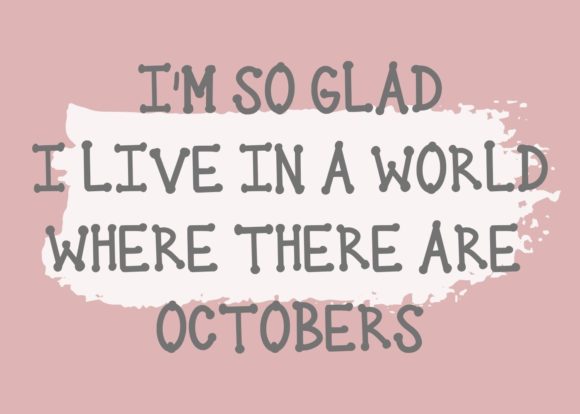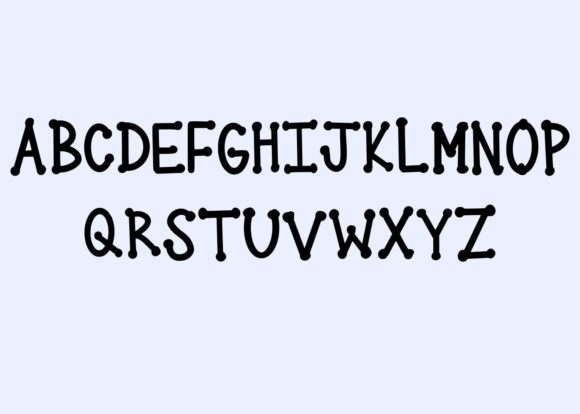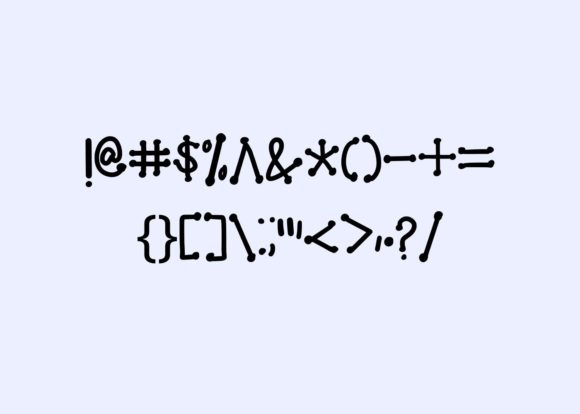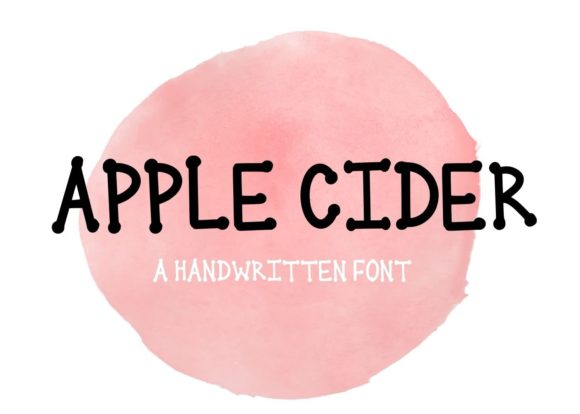
Introducing Apple Cider Font: The Perfect Addition to Your Creative Projects
Are you tired of using the same old fonts in your designs? Look no further than Apple Cider Font, a cool, neat, and fun display font that’s sure to make your projects stand out. With its unique and eye-catching style, Apple Cider Font is the perfect addition to your creative ideas, whether you’re a designer, crafter, or simply someone who loves to express themselves through art.
What is Apple Cider Font?
Apple Cider Font is a display font that’s designed to make a statement. Its cool and neat style is perfect for adding a touch of sophistication to your designs, while its fun and playful vibe ensures that it will never feel too serious or boring. Whether you’re creating a logo, a poster, or a social media graphic, Apple Cider Font is the perfect choice.
What Makes Apple Cider Font So Versatile?
One of the things that sets Apple Cider Font apart from other fonts is its incredible versatility. It can easily be matched to an incredibly large set of projects, from bold and colorful designs to more subtle and understated ones. Whether you’re working on a children’s book, a fashion brand, or a food blog, Apple Cider Font is sure to fit right in.
How Can You Use Apple Cider Font in Your Projects?
There are countless ways to use Apple Cider Font in your projects. Here are just a few ideas to get you started:
- Logos and branding: Use Apple Cider Font to create a unique and memorable logo for your business or brand.
- Posters and flyers: Add a pop of personality to your posters and flyers with Apple Cider Font.
- Social media graphics: Use Apple Cider Font to create eye-catching social media graphics that will help your brand stand out.
- Packaging design: Add a touch of whimsy to your packaging design with Apple Cider Font.
- Invitations and cards: Use Apple Cider Font to create beautiful and unique invitations and cards.
Why Should You Choose Apple Cider Font?
So why should you choose Apple Cider Font for your projects? Here are just a few reasons:
- Unique style: Apple Cider Font has a unique and eye-catching style that’s sure to make your projects stand out.
- Versatility: Apple Cider Font is incredibly versatile and can be used in a wide range of projects.
- Fun and playful: Apple Cider Font has a fun and playful vibe that’s perfect for adding a touch of personality to your designs.
Tips for Using Apple Cider Font Effectively
Here are a few tips for using Apple Cider Font effectively in your projects:
- Use it sparingly: Apple Cider Font is a bold and eye-catching font, so use it sparingly to avoid overwhelming your design.
- Experiment with colors: Apple Cider Font looks great in a wide range of colors, so don’t be afraid to experiment and find the perfect color for your design.
- Pair it with other fonts: Apple Cider Font pairs well with a wide range of other fonts, so try pairing it with a simpler font to create a striking contrast.
Apple Cider Font is a cool, neat, and fun display font that’s perfect for adding a touch of personality to your creative projects. With its unique style, versatility, and ease of use, it’s the perfect choice for designers, crafters, and anyone who loves to express themselves through art. So why not give Apple Cider Font a try and see how it can help take your designs to the next level?